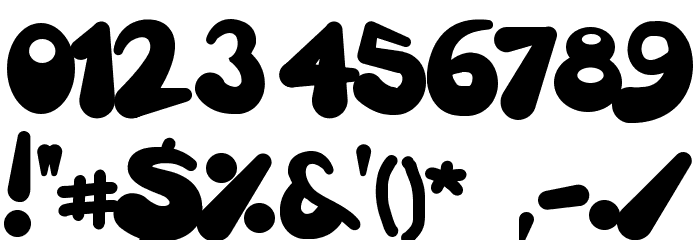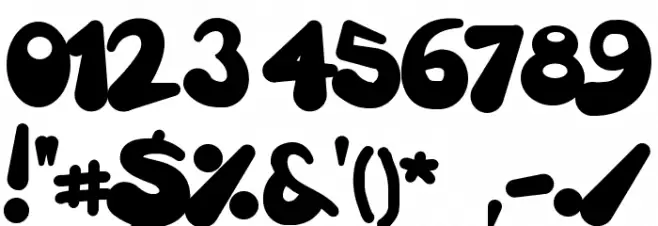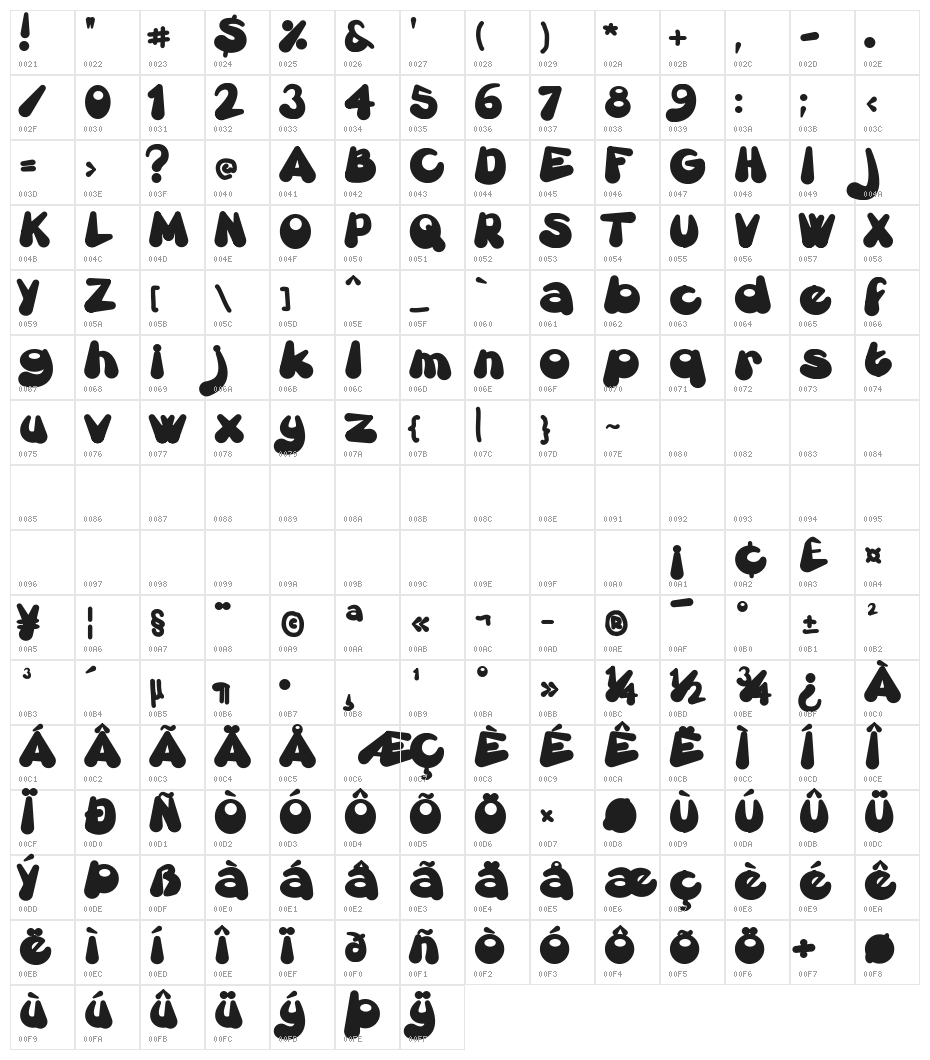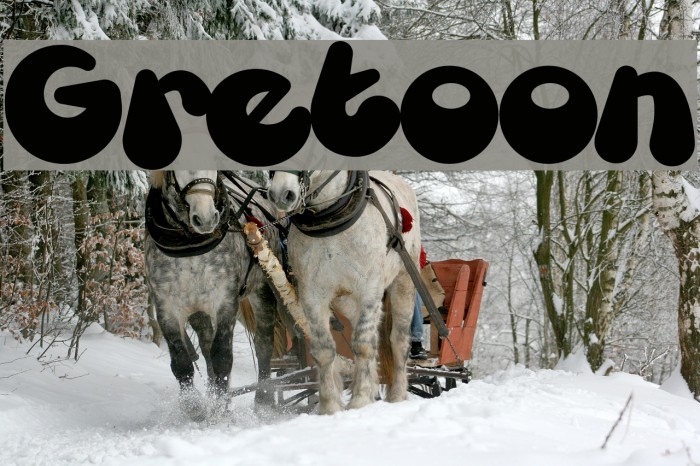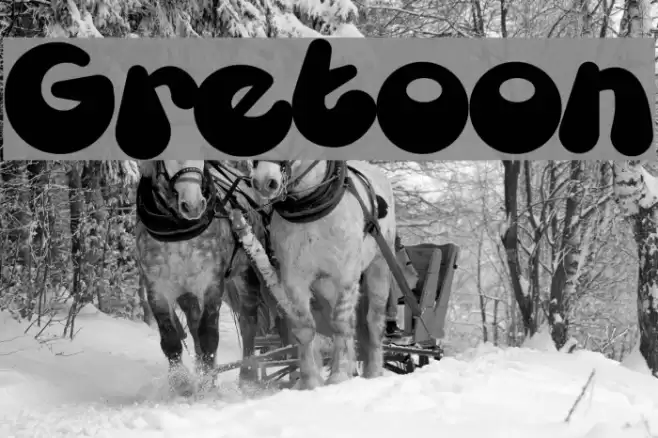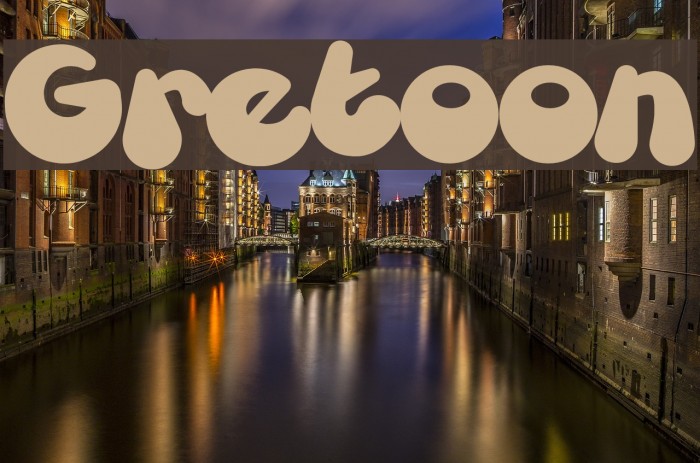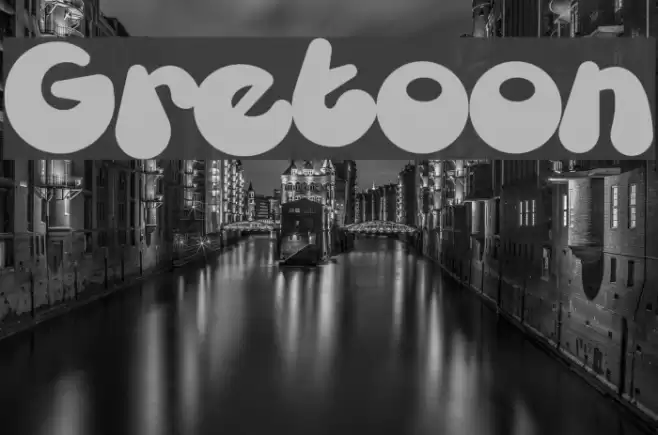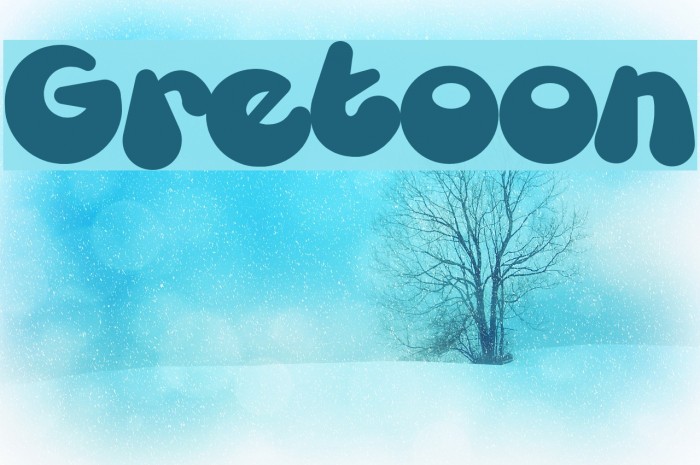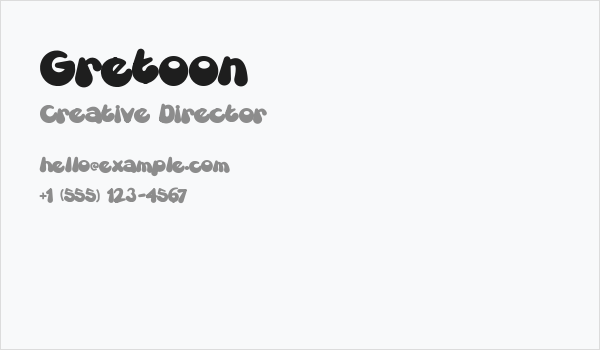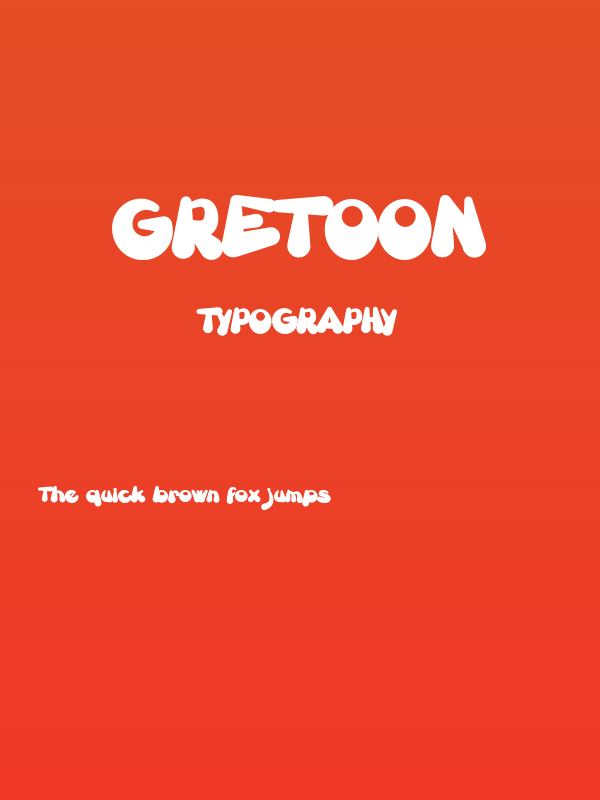
Gretoon Font
Gretoon Description
This playful and bold font features a bubbly, cartoonish style with thick, rounded strokes that give it a fun and energetic appearance. The characters are highly stylized, with exaggerated curves and a slightly irregular baseline, adding to its whimsical charm. The uppercase and lowercase letters maintain a consistent weight, creating a cohesive look across the alphabet. Numbers and special characters follow the same design principles, ensuring uniformity throughout. This font's unique personality makes it ideal for projects that require a touch of humor and creativity.
| Overall Style | Playful, Cartoonish |
| Proposed Projects | Ideal for children's books, comic strips, playful branding, party invitations, and posters. |